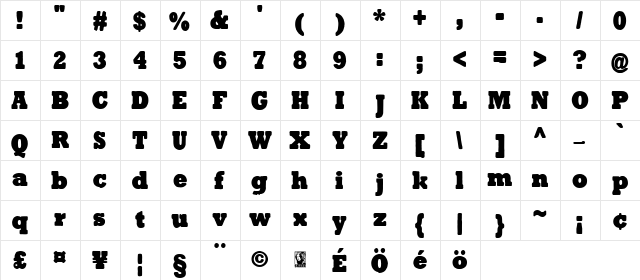
Tender Goliath Regular
| Foundry | S. John Ross |
| Designer | S. John Ross |
Design Context for Tender Goliath Typeface
Tender Goliath offers clean, dependable letterforms without strong stylistic allegiance, making it a practical choice for designers who need flexibility.
Pro Tip: Pair Tender Goliath with a font of contrasting weight or personality to build a more expressive typographic hierarchy.